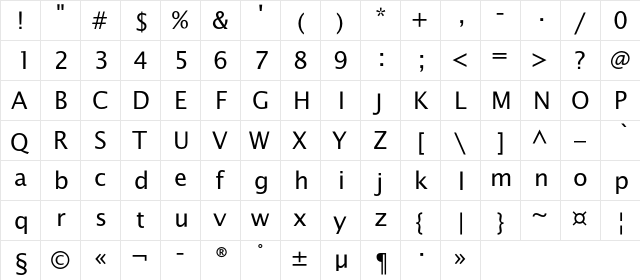
OfficeTypeSans Regular
Design Context for OfficeTypeSans Typeface
OfficeTypeSans offers clean, dependable letterforms without strong stylistic allegiance, making it a practical choice for designers who need flexibility.